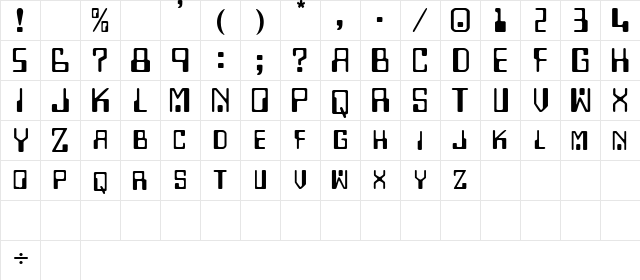
DigitalMachine Regular
Design Context for DigitalMachine Typeface
DigitalMachine channels digital-age aesthetics through its sharp, structured letterforms — ideal for brands that want to signal innovation.
Pro Tip: Use DigitalMachine in combination with a neutral sans for body text. Let it define the brand voice in headlines while keeping reading comfortable elsewhere.